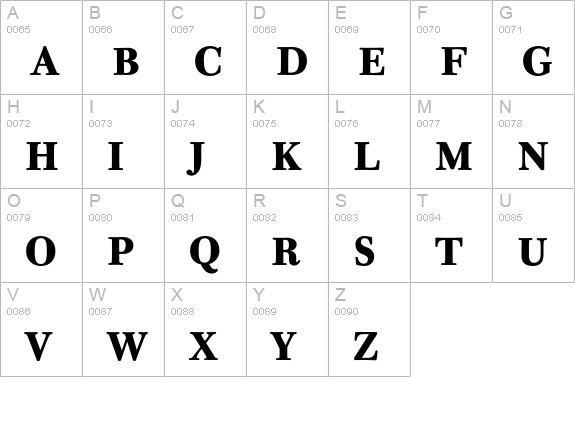
Scotch-TextBlack Font Details
Scotch-TextBlack is a bold and impactful font that commands attention with its strong and sturdy letterforms. Crafted with precision and attention to detail, this font exudes a sense of authority and elegance. Its thick strokes and sharp angles give it a distinct and powerful presence, making it perfect for headlines, logos, and other prominent design elements. The versatility of Scotch-TextBlack is further enhanced by its ability to effortlessly blend into various design styles and themes. Whether used in a modern and minimalist layout or a vintage-inspired design, this font adds a touch of sophistication and sophistication. But what makes Scotch-TextBlack even more appealing is that it is available for free download at FontsMarket.com. This means that designers and creatives can access this high-quality font without any cost, making it a valuable asset for both personal and professional projects. With its bold and commanding presence, Scotch-TextBlack is sure to make a lasting impression. Its timeless design and freely available nature make it a must-have for any designer's toolkit. So why wait? Head over to FontsMarket.com and download Scotch-TextBlack today to elevate your designs to new heights.